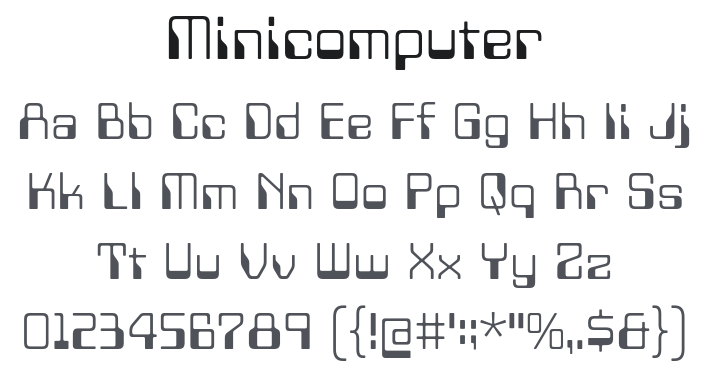
Minicomputer Font Family
About Minicomputer
Minicomputer is where 1960s retro-futurism swaps its lab coat for a mod minidress. Inspired by MICR E-13B magnetic ink characters—the kind once printed at the bottom of bank checks—it blends mid-century tech precision with the bold spirit of Swinging London. This is a display typeface that remembers its roots in early computing, yet struts confidently into the world of fashion, music, and cultural cool.